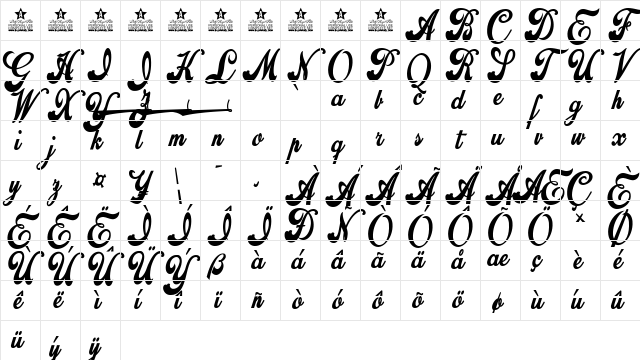
Alliance Personal Use Regular Free Font
Alliance Personal Use Regular
Foundry: Billy Argel
Designer: Billy Argel
Complete Alliance Personal Use Regular glyph index. Displaying only characters natively supported by Alliance Personal Use Regular font.
Design Context for Alliance Personal Use
Alliance Personal Use is a composed and adaptable typeface that performs quietly and consistently across a wide range of design contexts.